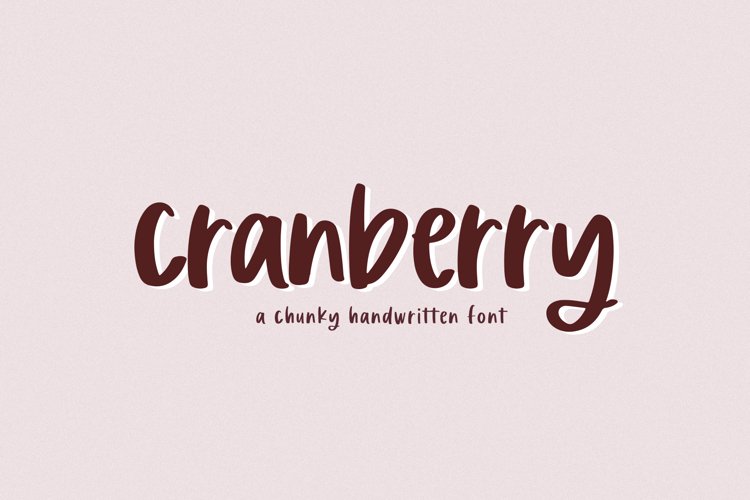
Cranberry - A Handwritten Font
Cranberry
Cranberry is a fun handwritten font!
This font is perfect for all of your crafting projects!
This font does include accent characters.